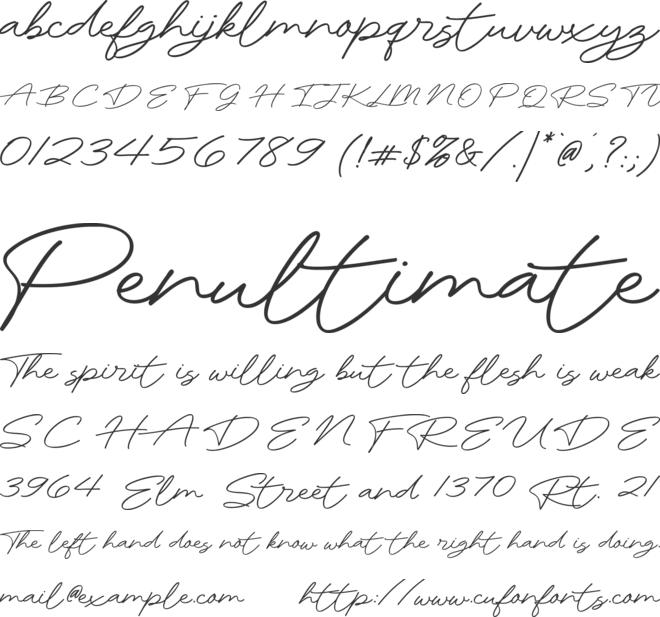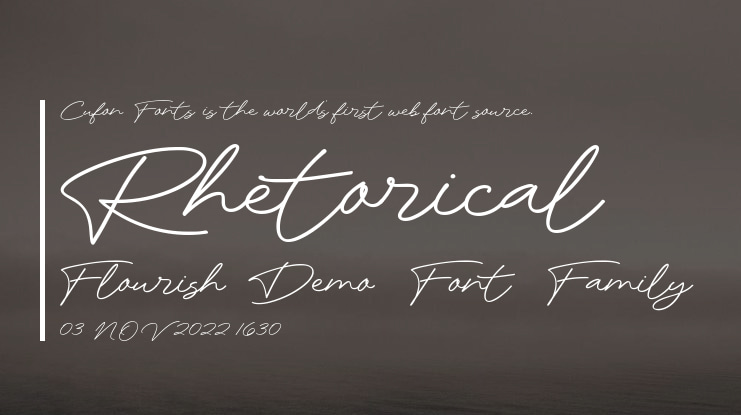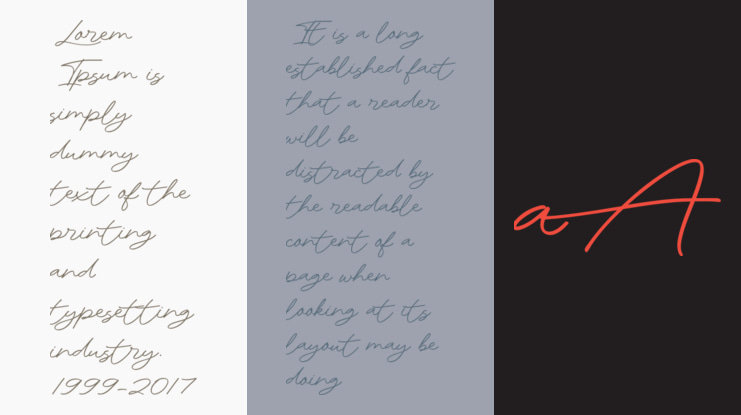
Rinaldo Hasibuan
Rhetorical Flourish: An Elegant Script Font for Timeless Wedding Design
There's a certain magic in handwriting that feels personal, unrehearsed, and full of soul. Rhetorical Flourish captures that magic — an elegant script font designed to move like real ink on paper, complete with sweeping swashes and organic rhythm.
A Script That Feels Alive
Unlike stiff, uniform scripts, Rhetorical Flourish is built with hundreds of ligatures, stylistic alternates, and contextual alternates. Every letter shifts naturally depending on what comes before and after it — just like genuine handwriting.
Key features include:
Beginning and ending swashes for dramatic first and last letters
Underline swashes for signature-style flourishes
Ligatures that connect letters smoothly
Contextual alternates for natural, non-repetitive flow
Perfect for Feminine, Romantic Branding
This feminine font carries a soft, romantic energy — elegant without being fussy. It's especially suited for:
Wedding invitations and save-the-dates
Bridal branding and stationery
Boutique packaging and beauty labels
Signature logos and monograms
Why Designers Choose Elegant Script Fonts
An elegant script font like Rhetorical Flourish instantly elevates a design's emotional tone. It whispers intimacy rather than shouting for attention — ideal for brands and events built around love, celebration, and personal connection.
Bring Your Story to Life
Every flourish tells a story. Whether you're designing a wedding suite or a romantic brand identity, Rhetorical Flourish adds that handwritten warmth your audience will feel instantly.